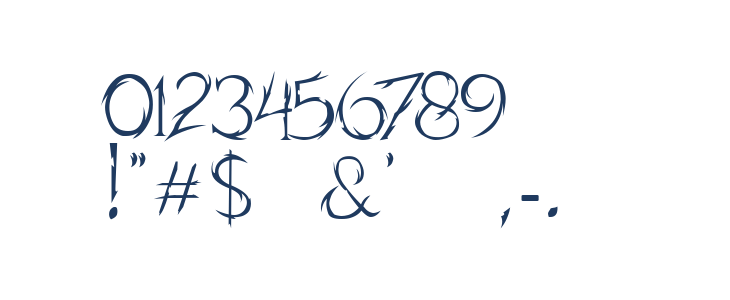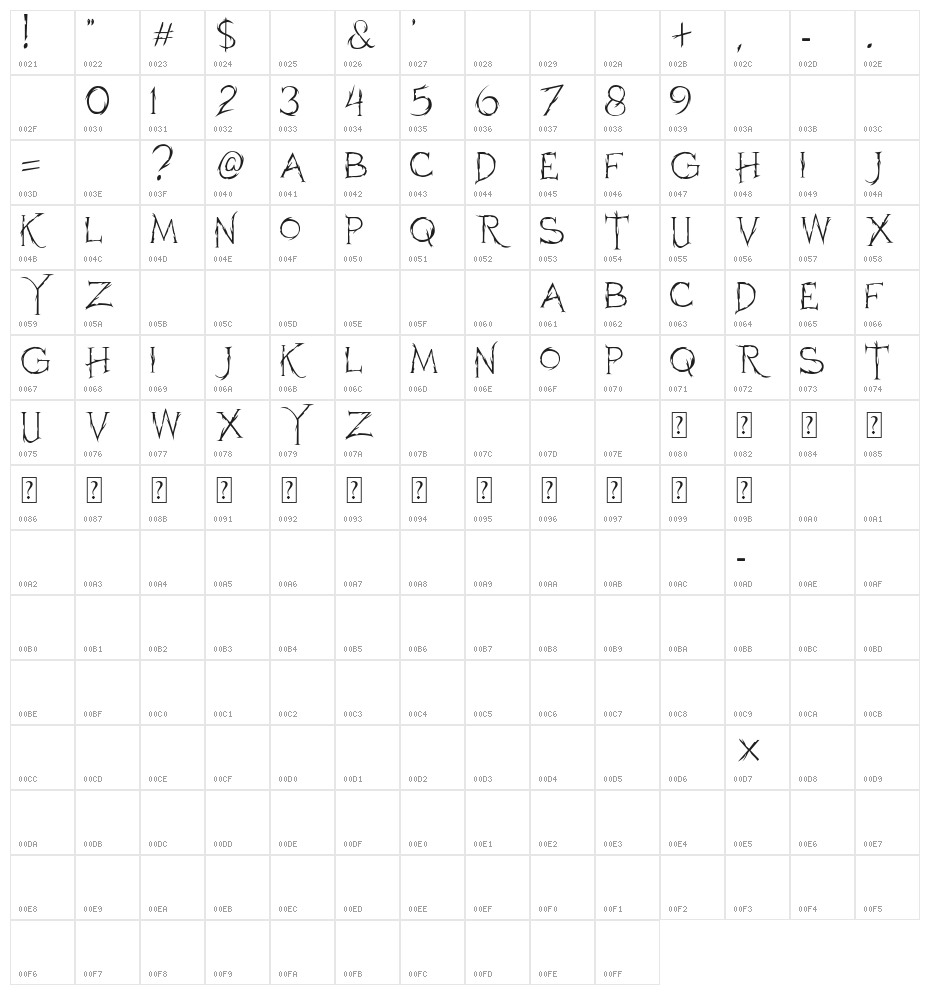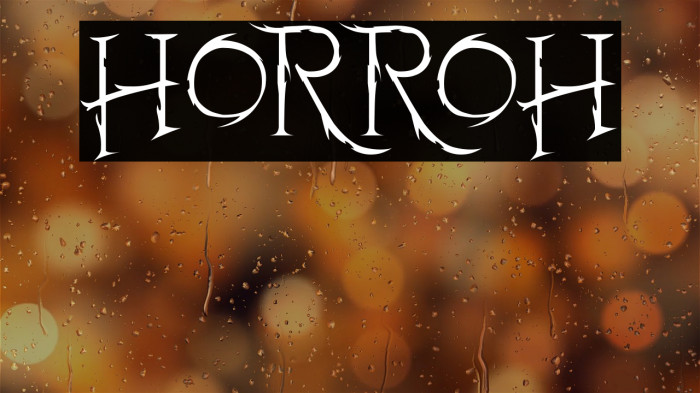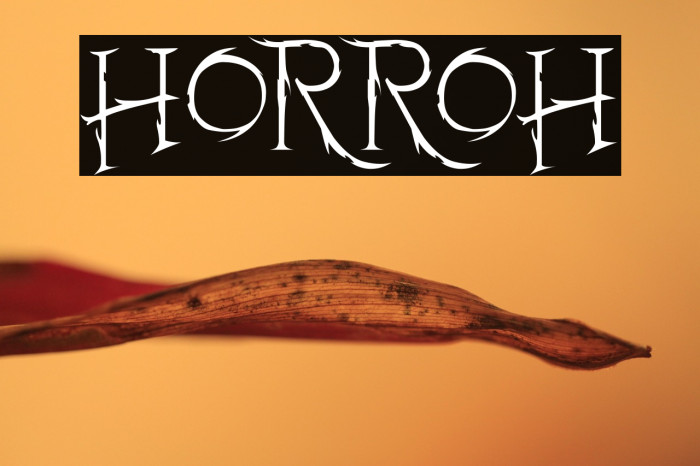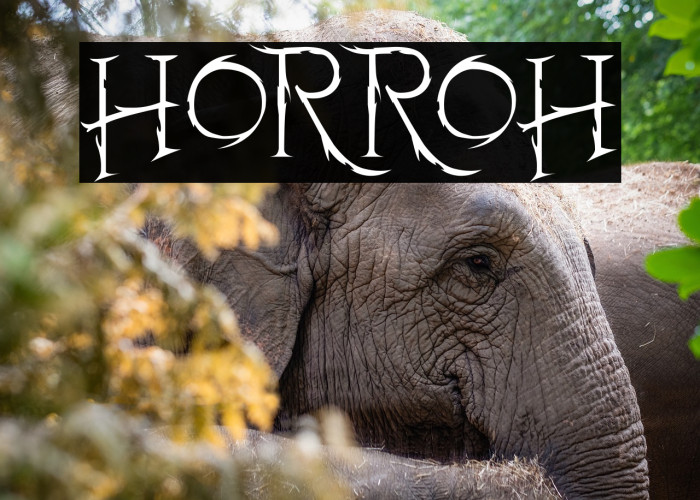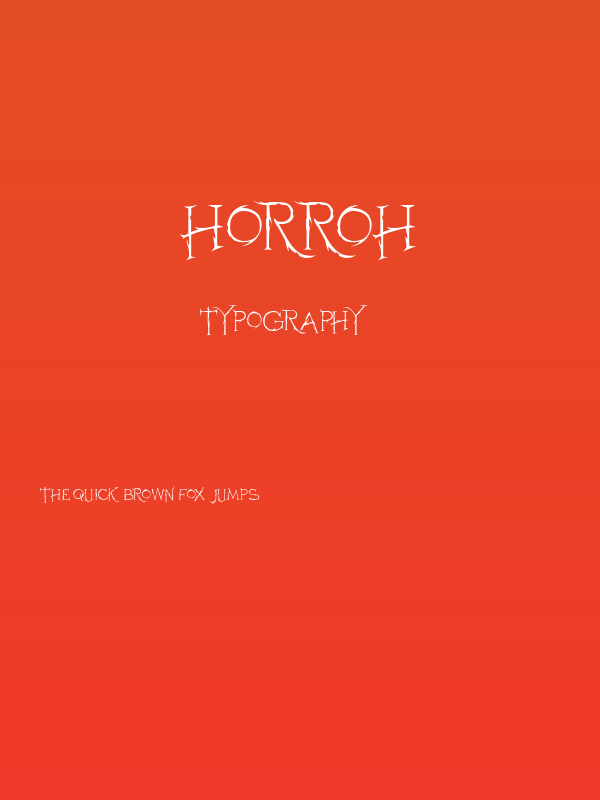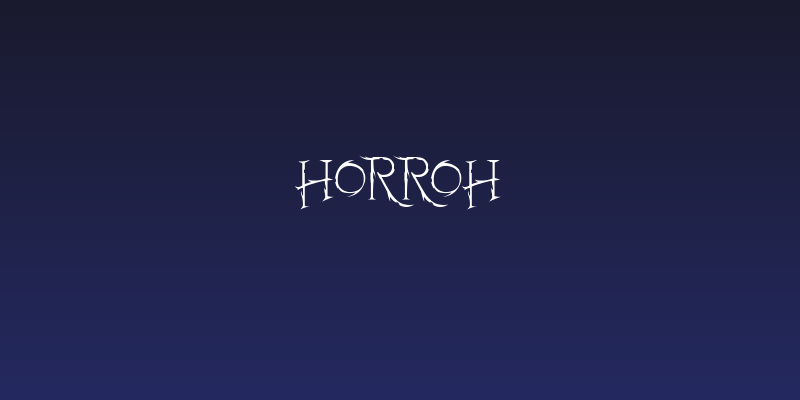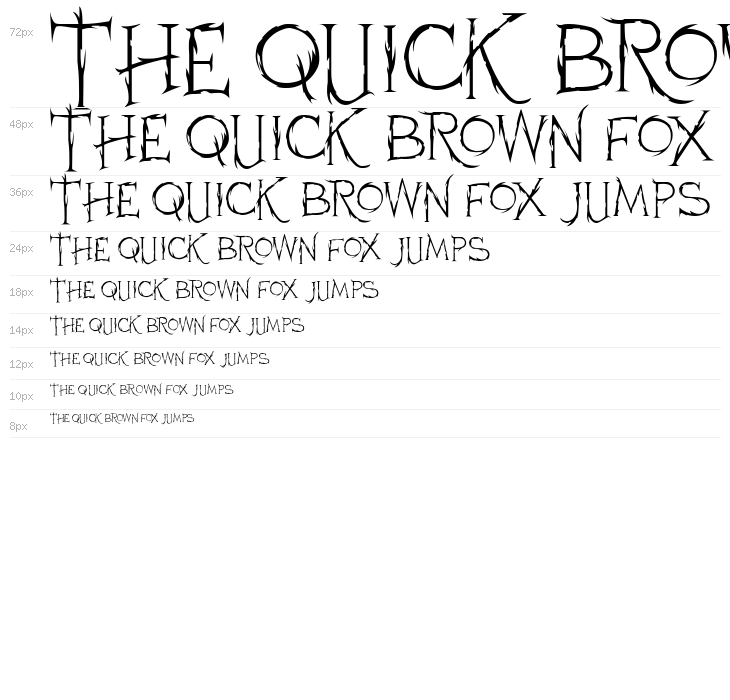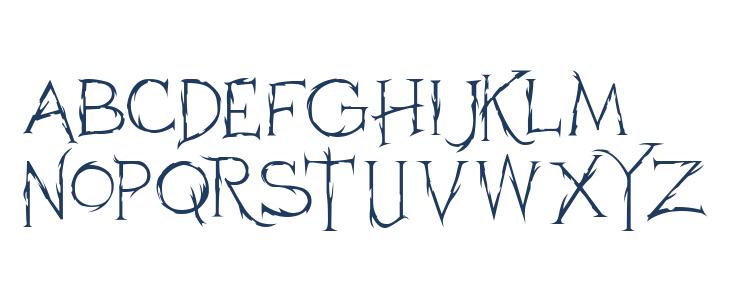
Horroh Font
Horroh Description
This font features a distinctive, eerie style with sharp, thorn-like extensions on each character, evoking a sense of horror and mystery. The uppercase and lowercase letters maintain a consistent design, with jagged edges and pointed tips that create a dramatic and unsettling appearance. The numerals and special characters follow the same aesthetic, ensuring a cohesive look across all text elements. This font is ideal for projects that require a spooky or gothic theme, such as Halloween invitations, horror movie posters, or themed event flyers.
| Overall Style | Gothic, Horror |
| Use Case | Headlines, Posters, Themed Events |
| Proposed Projects | Ideal for Halloween invitations, horror movie posters, themed event flyers, and spooky merchandise designs. |